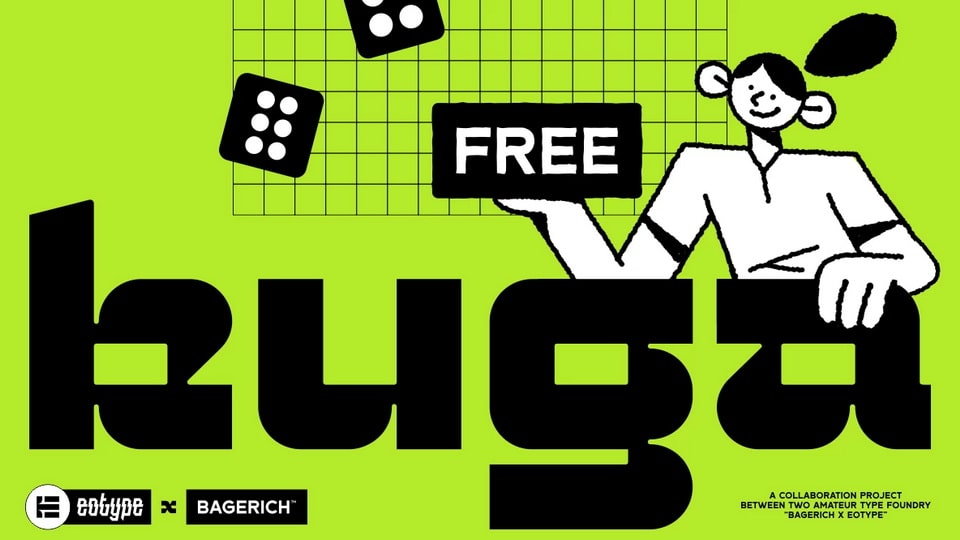
Download Kuga is a bold and friendly semi-futuristic sans serif typeface. Create unique and beautiful logotype, use it as an elegant solution for your next magazine layout, or choose Kuga for any graphics that require a sleek look with a elegant flair.
Designer: Eotype Studio